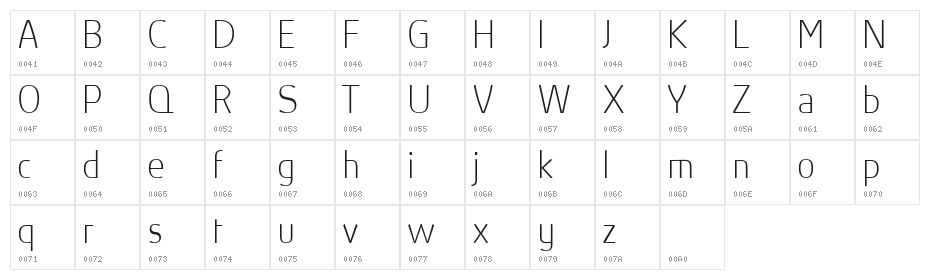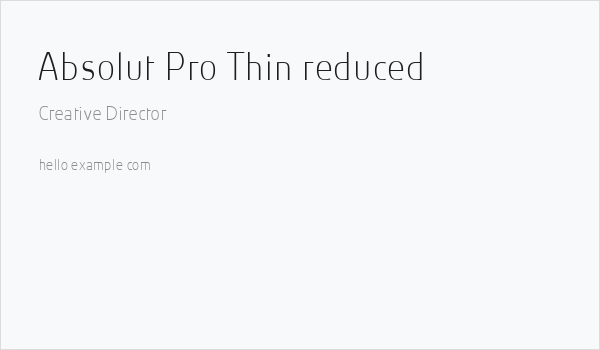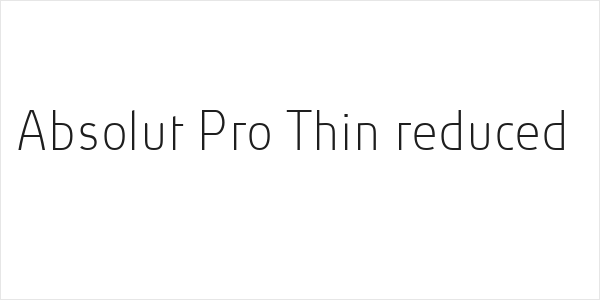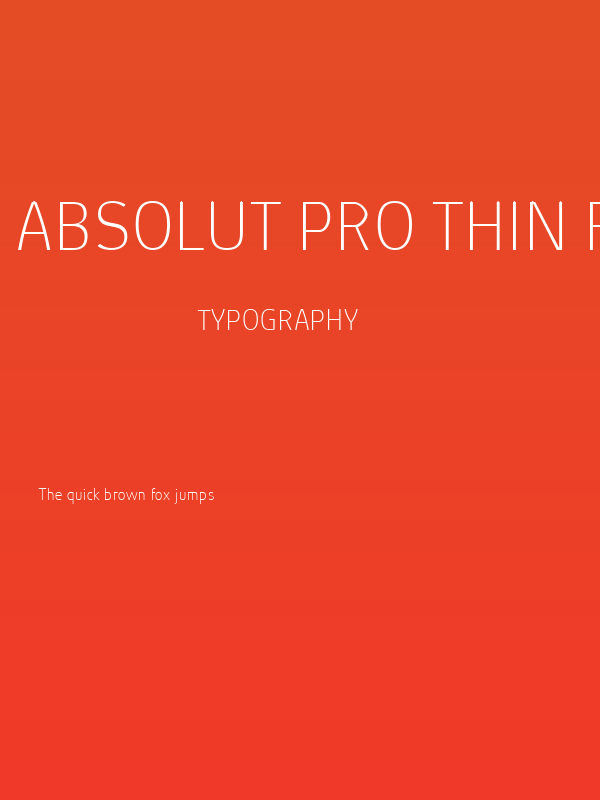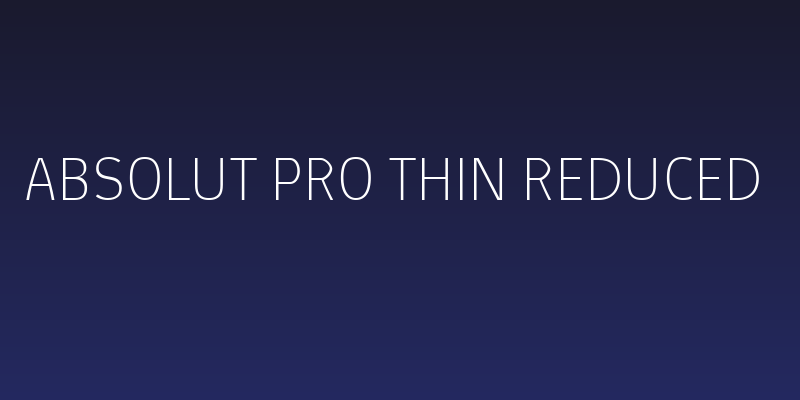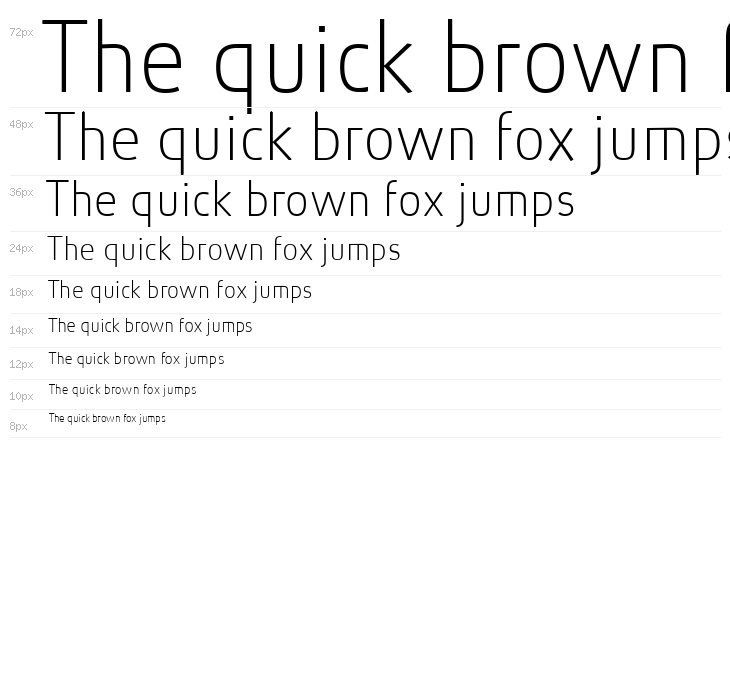
Absolut Pro Thin reduced Font
Absolut Pro Thin reduced Description
This font features a sleek and modern design with clean lines and a minimalist aesthetic. The characters are evenly spaced, providing a balanced and harmonious appearance. The uppercase letters are tall and slightly narrow, while the lowercase letters maintain a consistent height, contributing to a uniform look. The font's thin strokes give it a light and airy feel, making it suitable for contemporary designs. Its simplicity and elegance make it versatile for various applications, from digital interfaces to print media.
| Proposed Projects | Ideal for branding, digital interfaces, editorial design, and minimalist posters. |